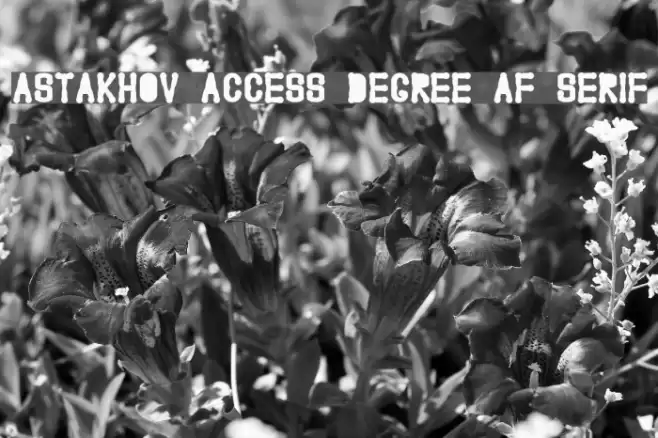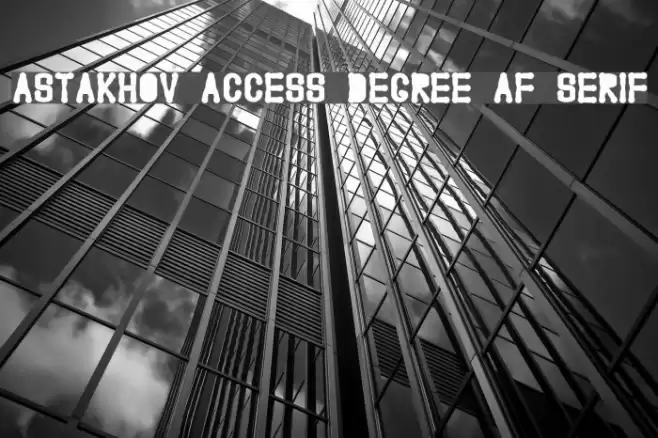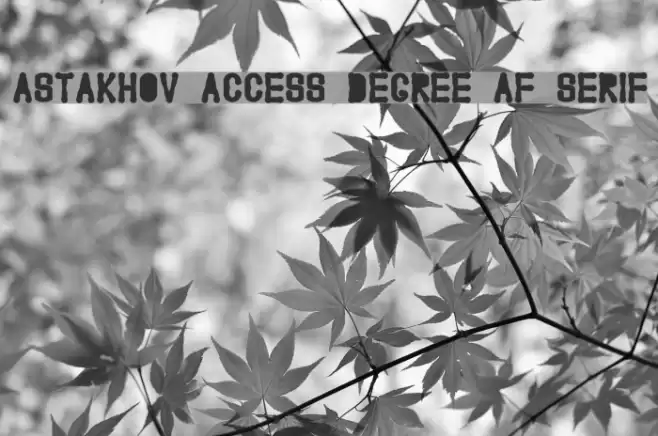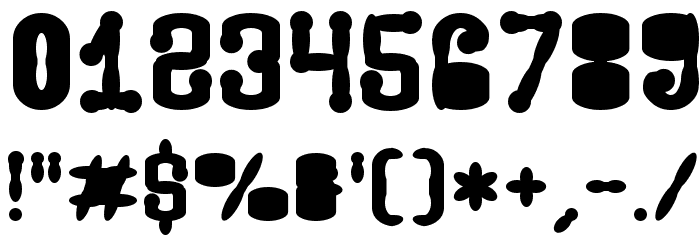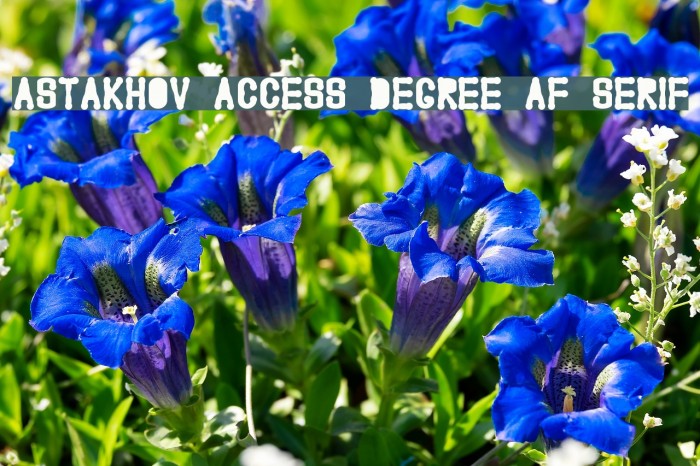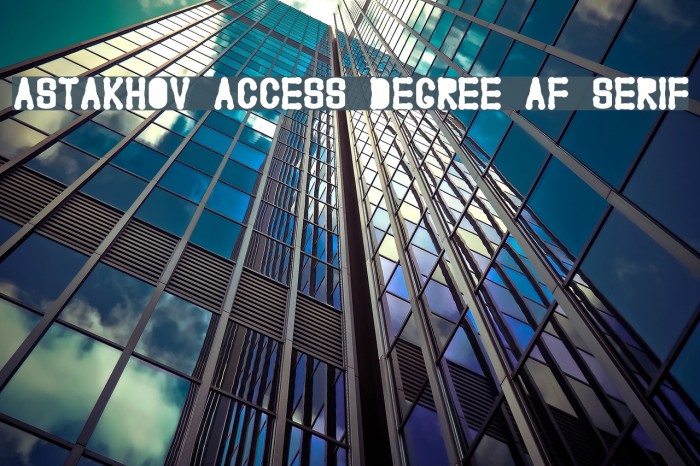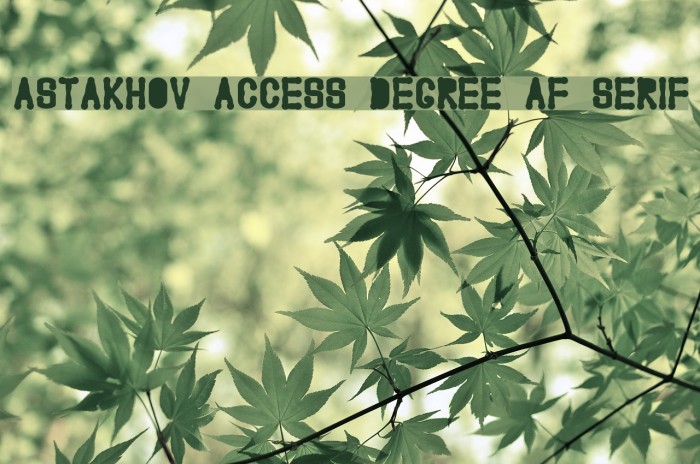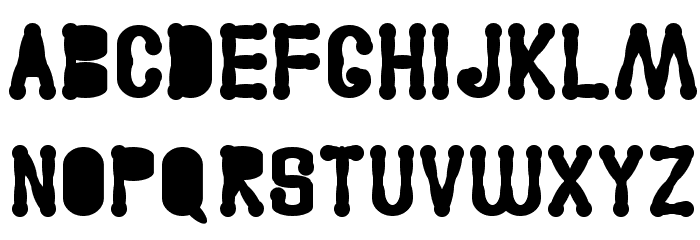
Astakhov Access Degree AF Serif Font
Astakhov Access Degree AF Serif Description
This font features a bold and playful design with a unique, organic feel. The characters are heavily rounded with irregular, blob-like shapes that give it a distinctive, almost cartoonish appearance. The letters are bold and have a substantial presence, making them stand out prominently. The style is reminiscent of retro or vintage designs, with a touch of whimsy and fun. The font includes both uppercase and lowercase letters, numbers, and a variety of special characters, all maintaining the same quirky and bold aesthetic.
A bold, playful font with rounded, blob-like characters and a retro vibe from Uncategorized fonts.
- Proposed Projects: Ideal for children's book covers, playful branding, posters, and any project needing a fun, eye-catching typeface.
- Overall Style: Vintage, Playful
- Use Case: Headlines, Posters, Branding